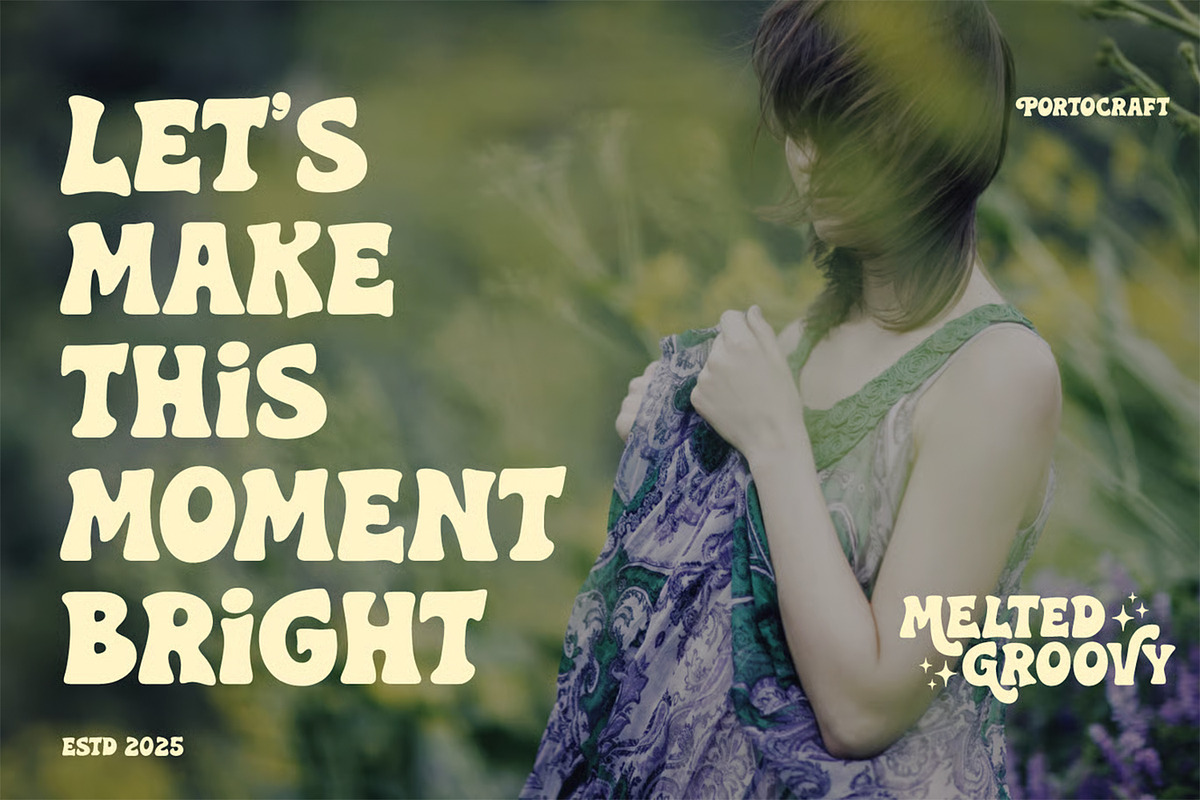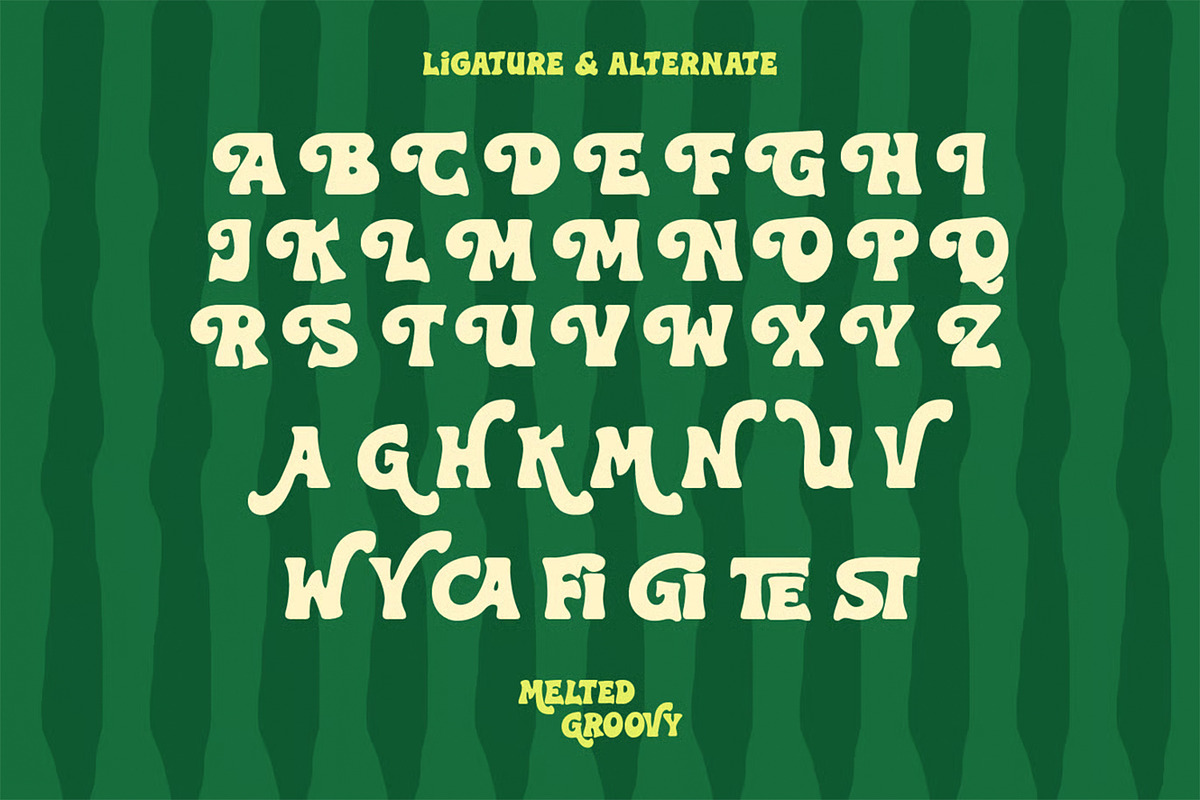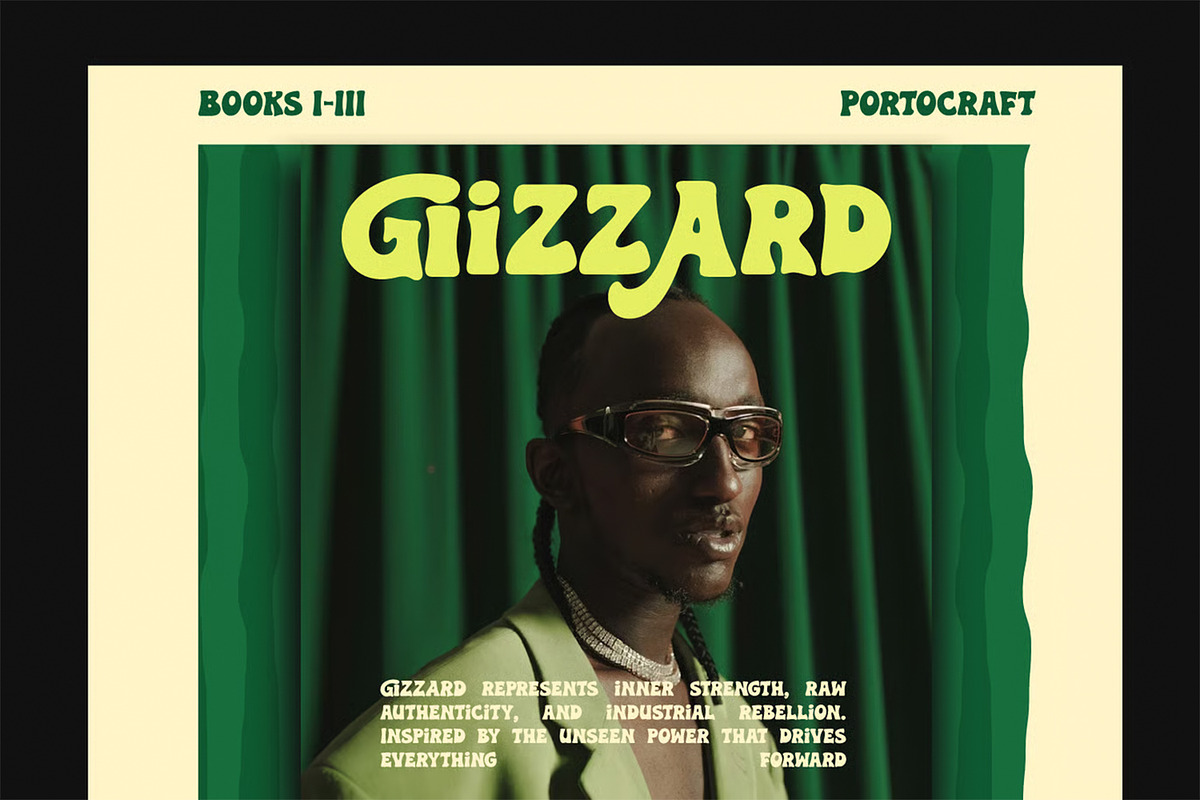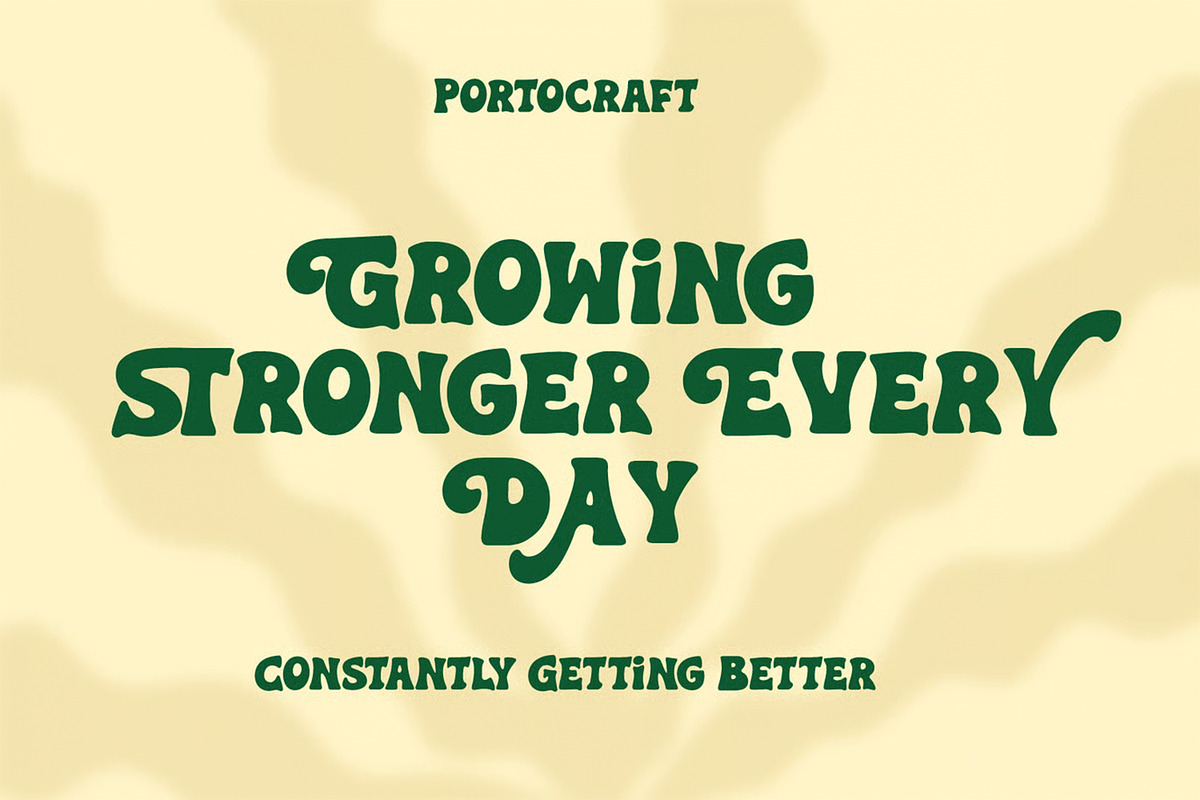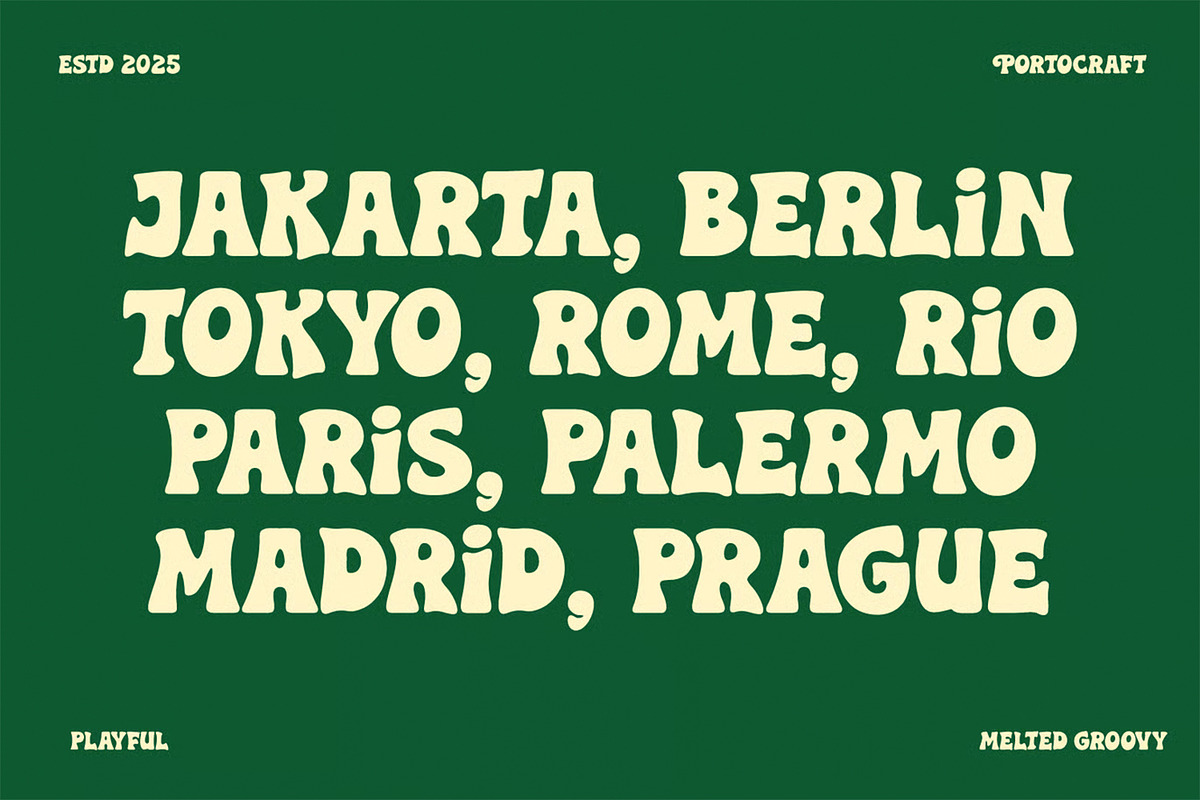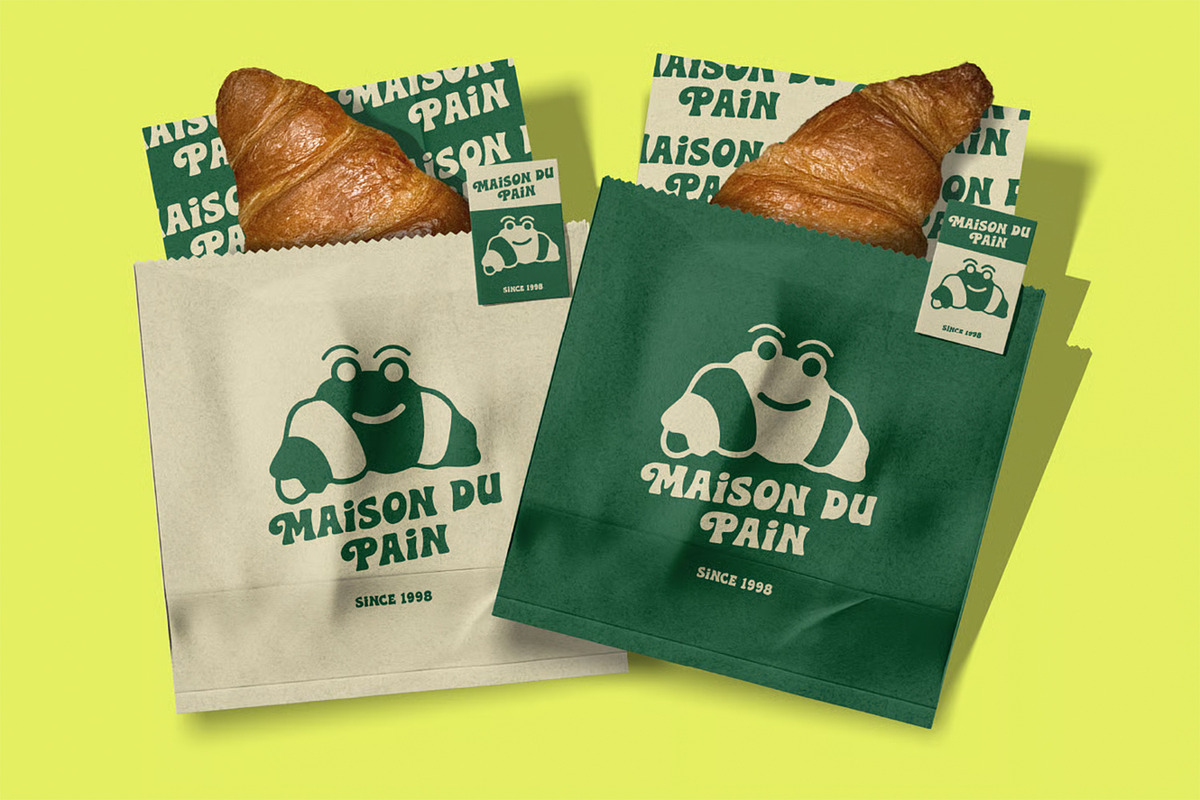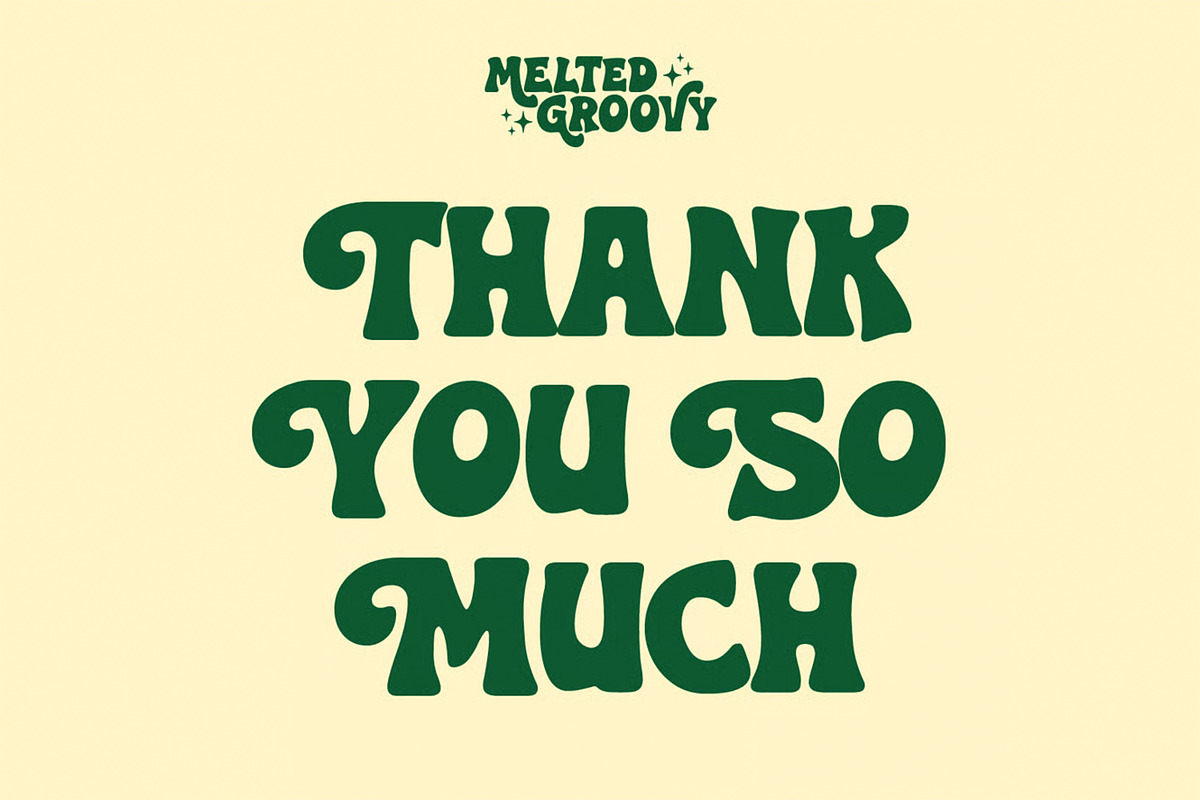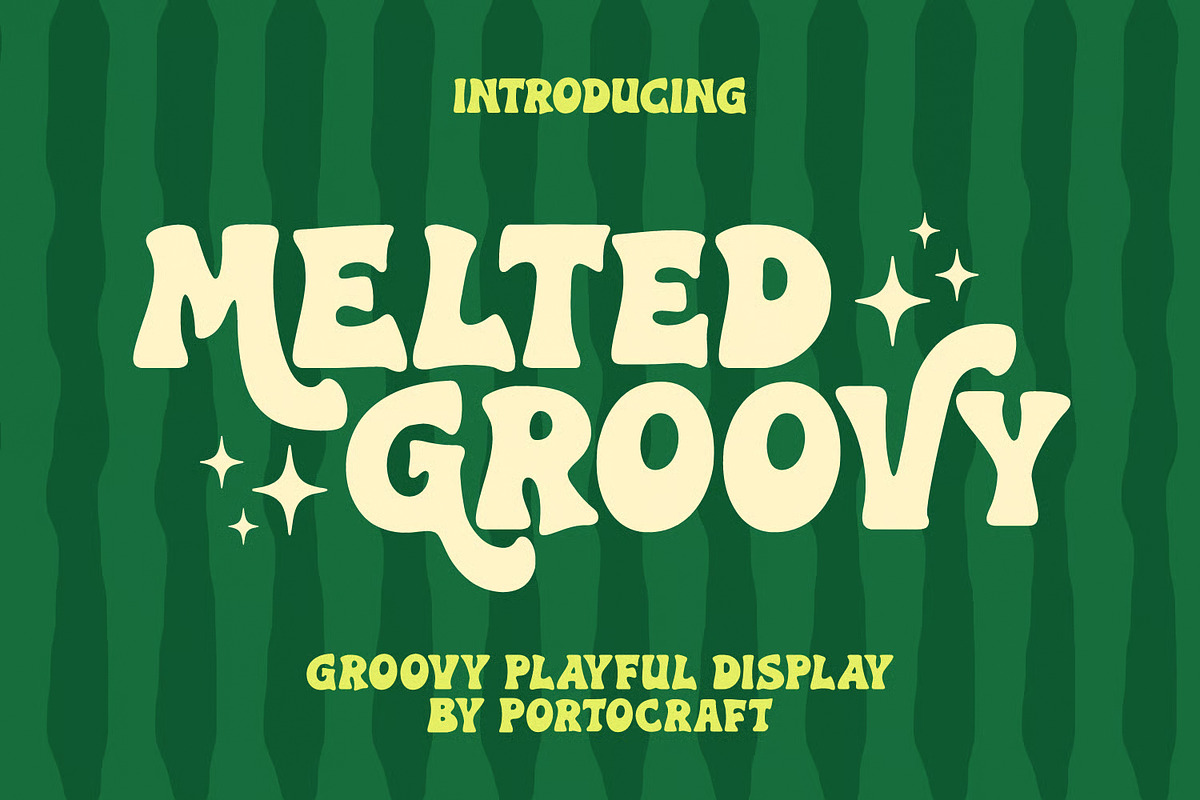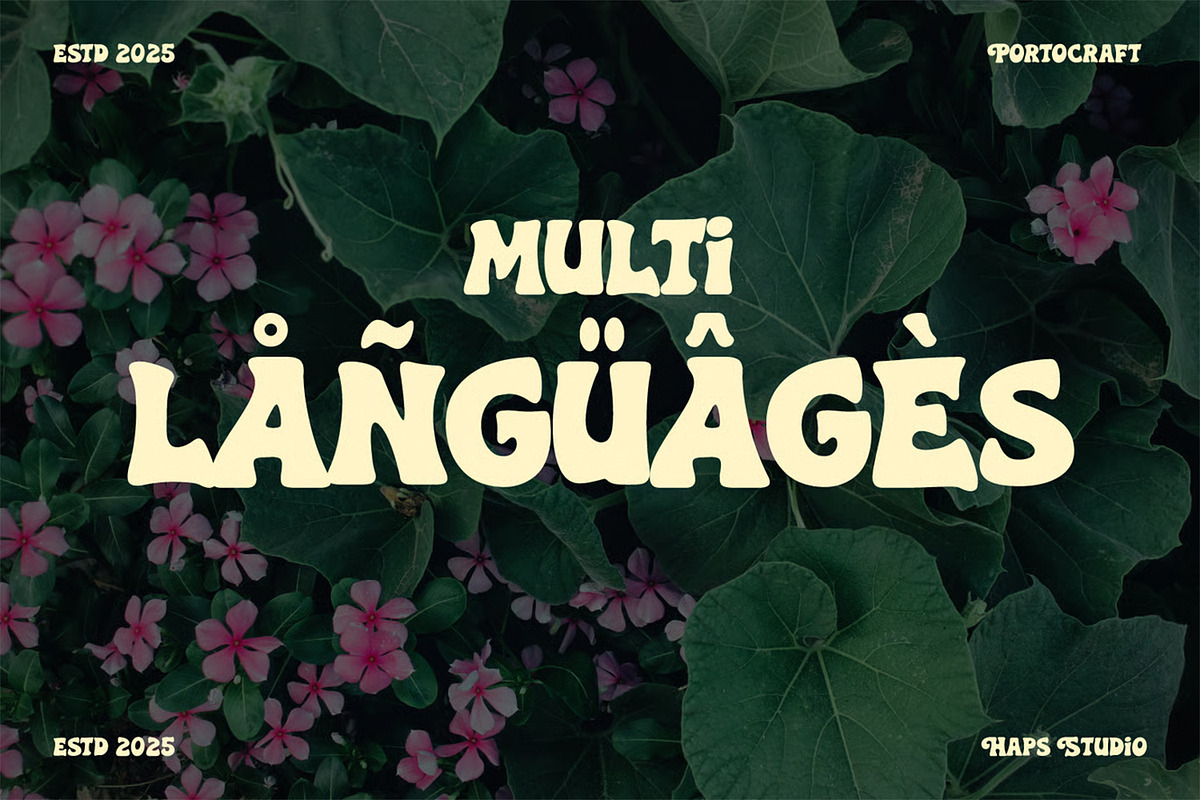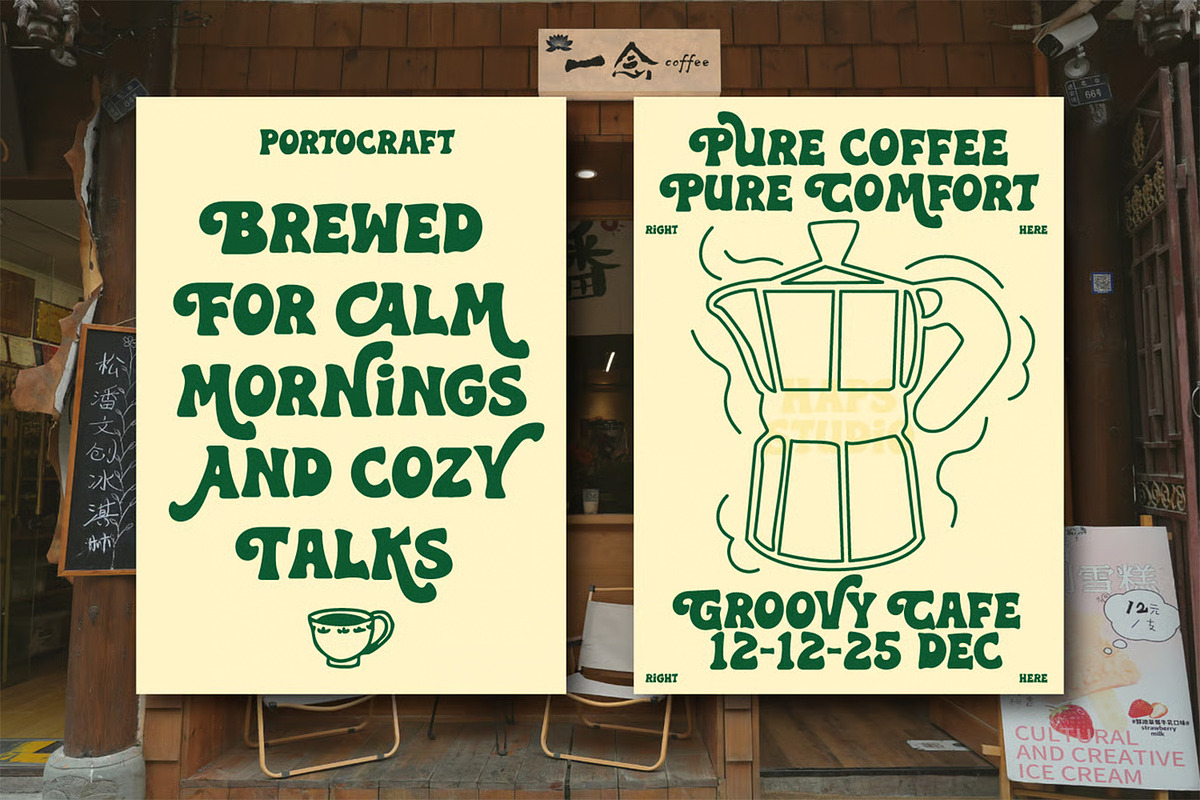
Melted Groovy Playful Display
Bring back the vibrant and carefree vibes of the 1970s with Melted Groovy, a delightfully playful display font designed by Portocraft. Featuring soft, melting curves, fluid organic shapes, and a bold retro aesthetic, this typeface is perfect for adding a fun, nostalgic, and energetic touch to any design project.
Whether you are aiming for a classic vintage look or a modern playful vibe, Melted Groovy offers unique letterforms that naturally stand out and catch the eye.
Poster & Event Design: Perfect for retro music festivals, artsy flyers, summer party invitations, and creative event posters.
Packaging & Branding: Ideal for eye-catching food & beverage packaging, snack brands, vintage-style cafes, and creative studio logos.
Apparel & Merchandise: Adds a trendy, nostalgic touch to t-shirts, tote bags, stickers, and custom streetwear.
Social Media & Marketing: Excellent for bold Instagram quotes, YouTube thumbnails, web banners, and playful digital advertising.
Children & Playful Projects: Great for kids' book titles, toy packaging, school event graphics, and lighthearted content.
Full uppercase and lowercase character set
Numbers and comprehensive punctuation
Stylistic alternates for maximum creativity